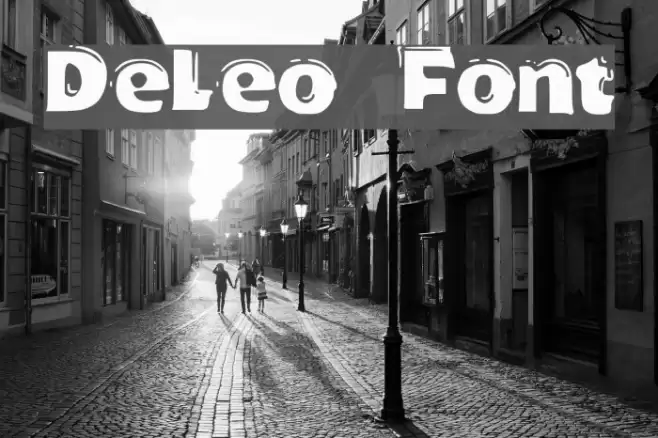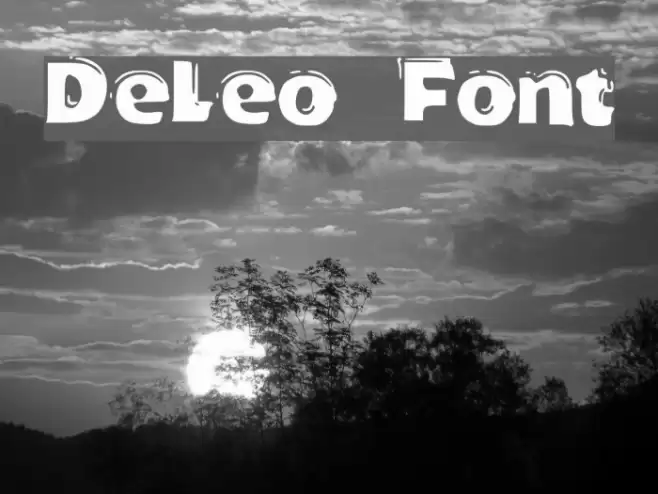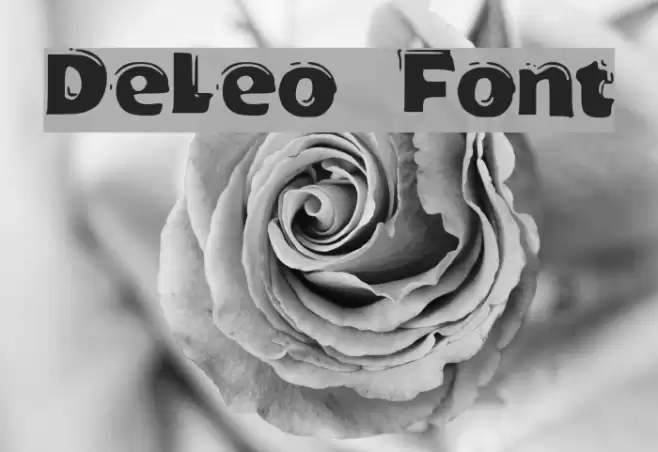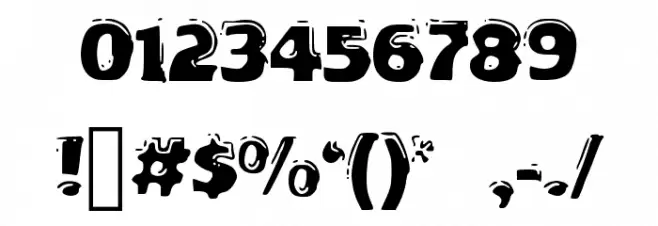
DeLeo Font
DeLeo Description
This font features a bold and playful design with a distinct decorative style. The characters have a chunky appearance with irregular edges, giving them a dynamic and lively feel. The uppercase and lowercase letters maintain a consistent weight, while the numbers and special characters complement the overall aesthetic. The font's unique style is characterized by its boldness and slight irregularities, making it stand out in any design. It is well-suited for projects that require a fun and engaging look.
A bold, playful decorative font with irregular edges from Uncategorized fonts.
- Proposed Projects: Ideal for children's books, posters, playful branding, and creative advertising campaigns.